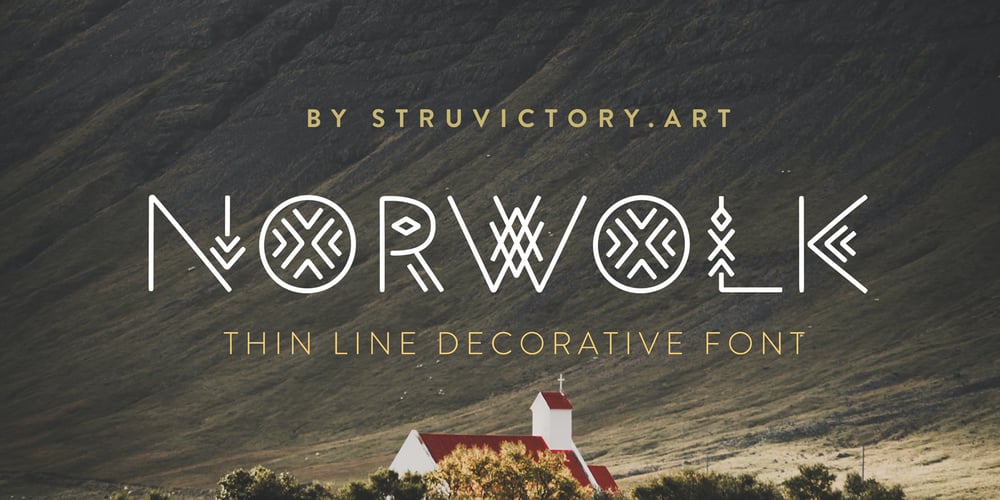
Norwolk Font Family was designed by Viktoryia Strukouskaya, Viktor Strukouski and published by Struvictory.art. Norwolk contains 2 styles and family package options. We would like to introduce our new product: Norwolk – Thin Line Decorative Font. Norwolk is a linear font in folk style, uppercase is decorated with geometric elements. The typeface includes Regular and Symbol versions. Letters and symbols are perfectly combined with each other. The font is easy to use in various design programs or without any program. Norwolk is suitable for lettering posters, music albums, tattoos and photo overlays in hipster style. The font is also suitable for sports and tourist design and city identity. The font works great both for printing clothes and craft products branding and packaging. Also use individual letters and symbols to create logos and monograms.